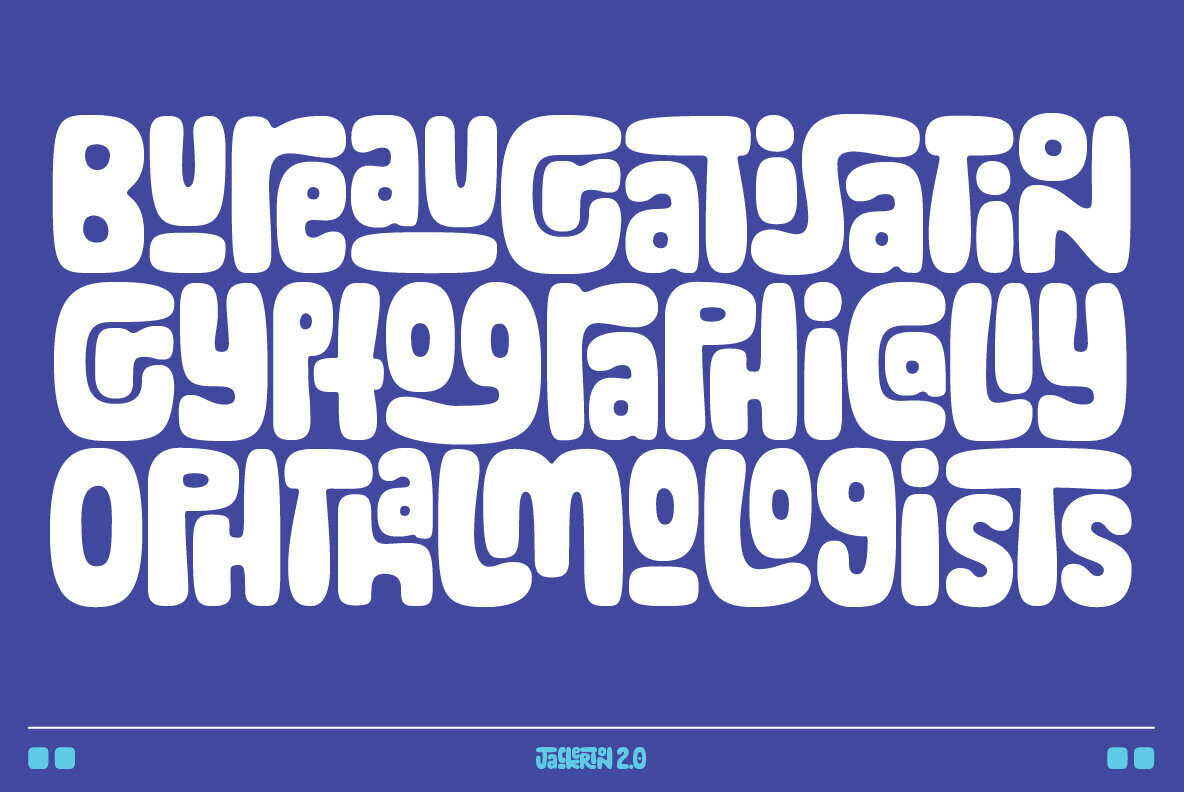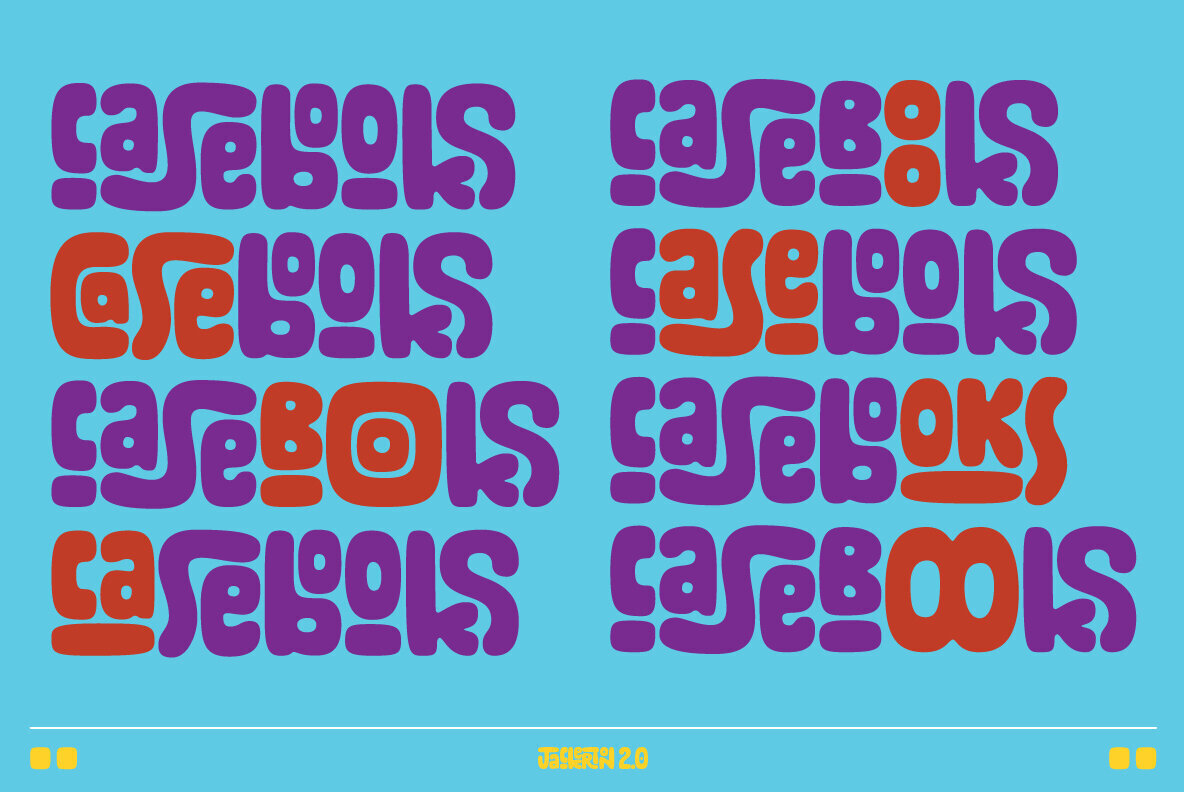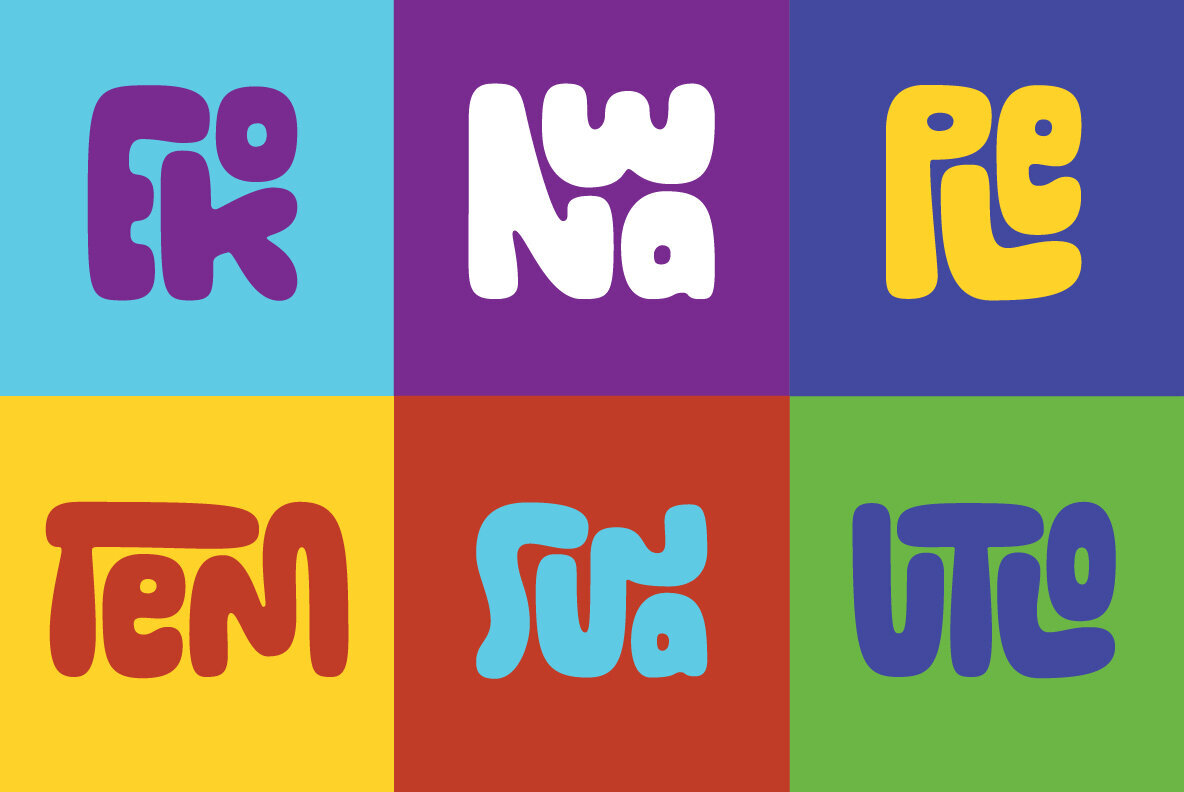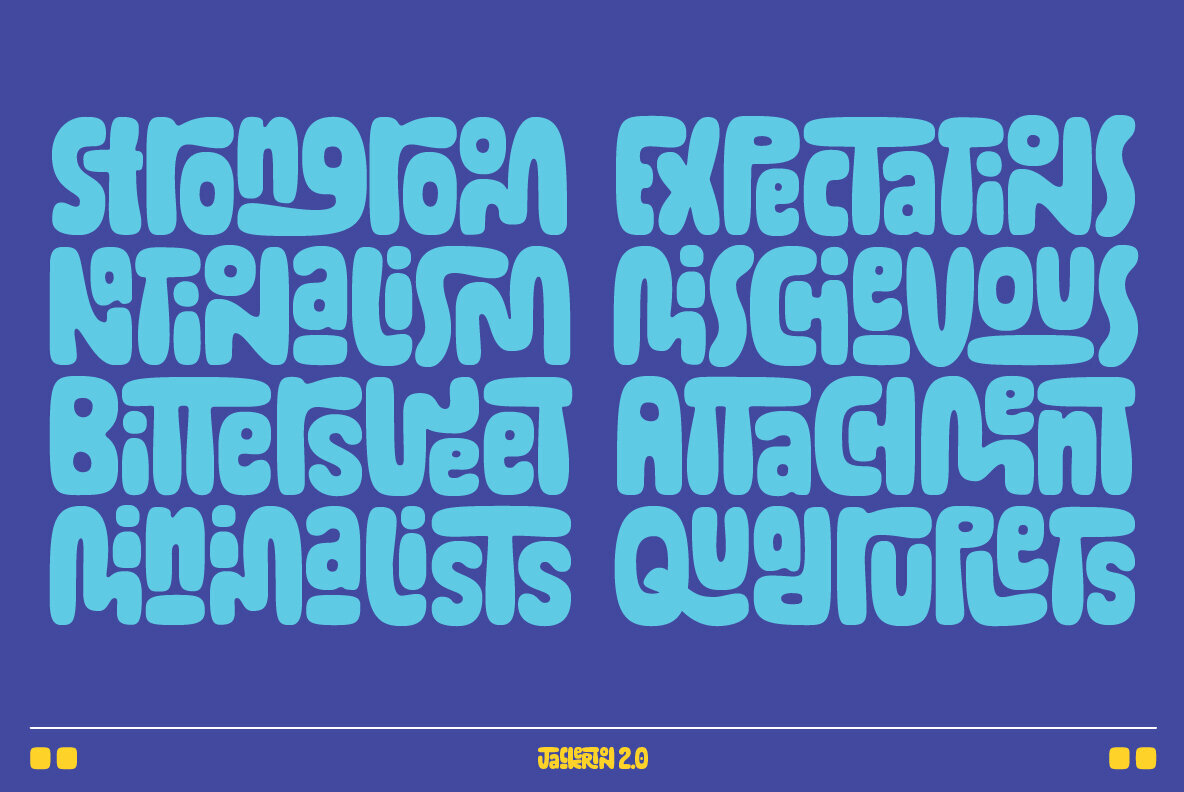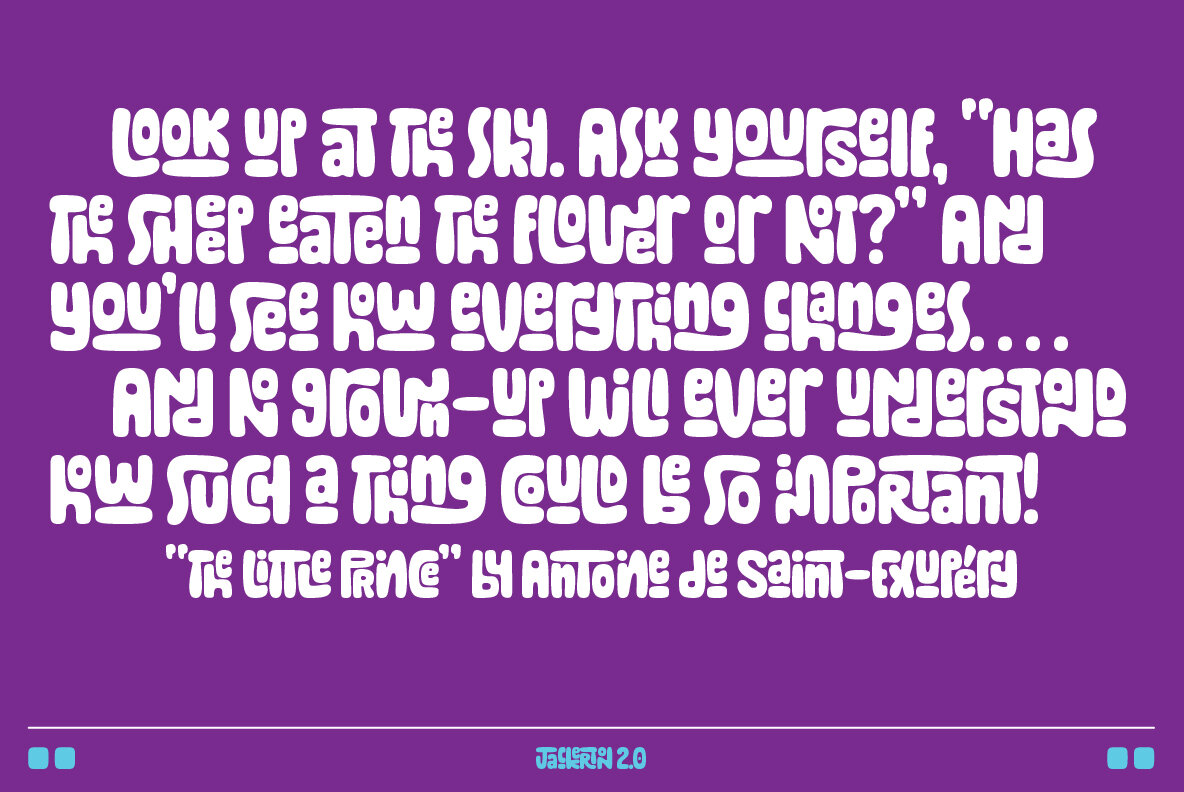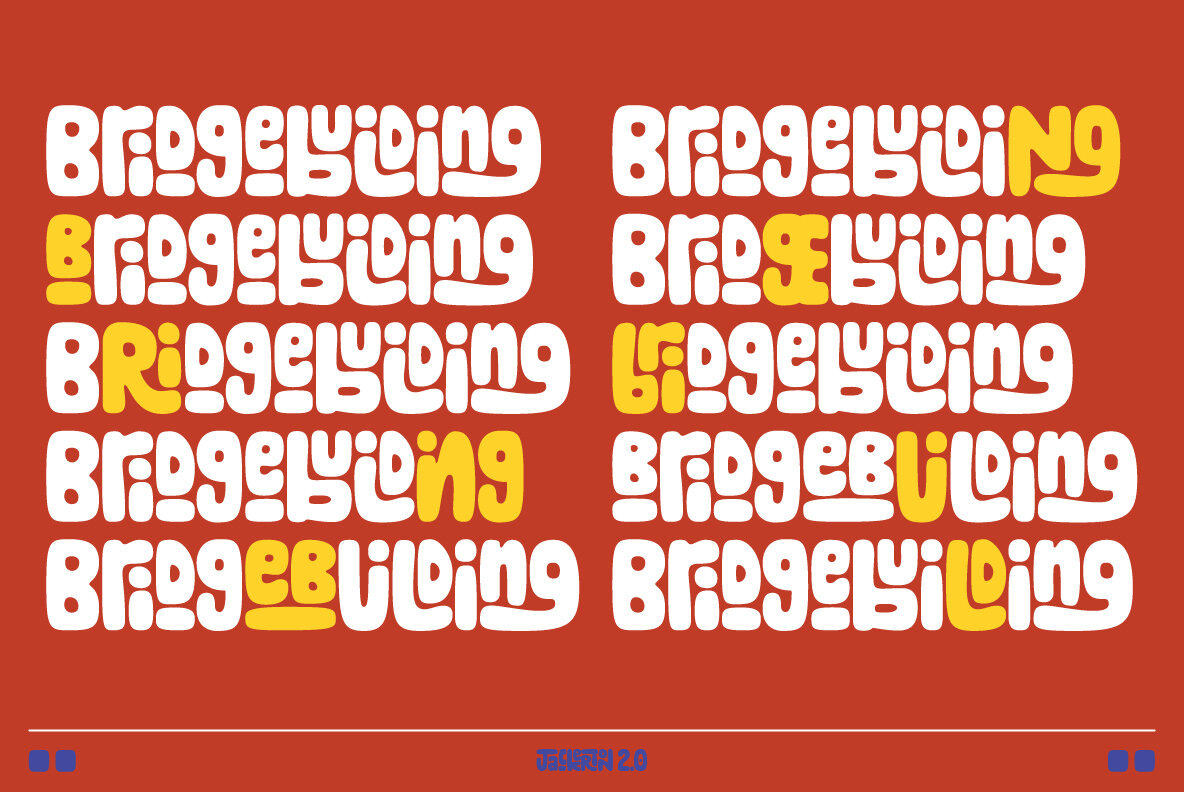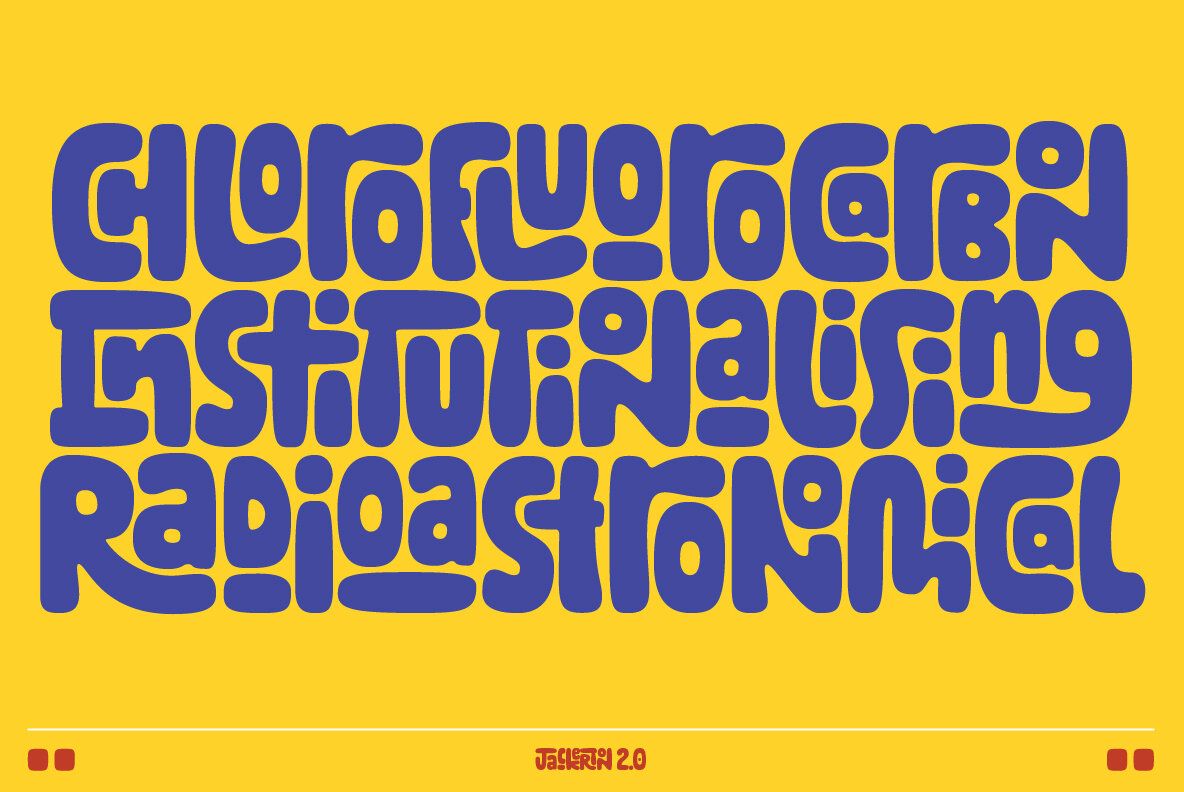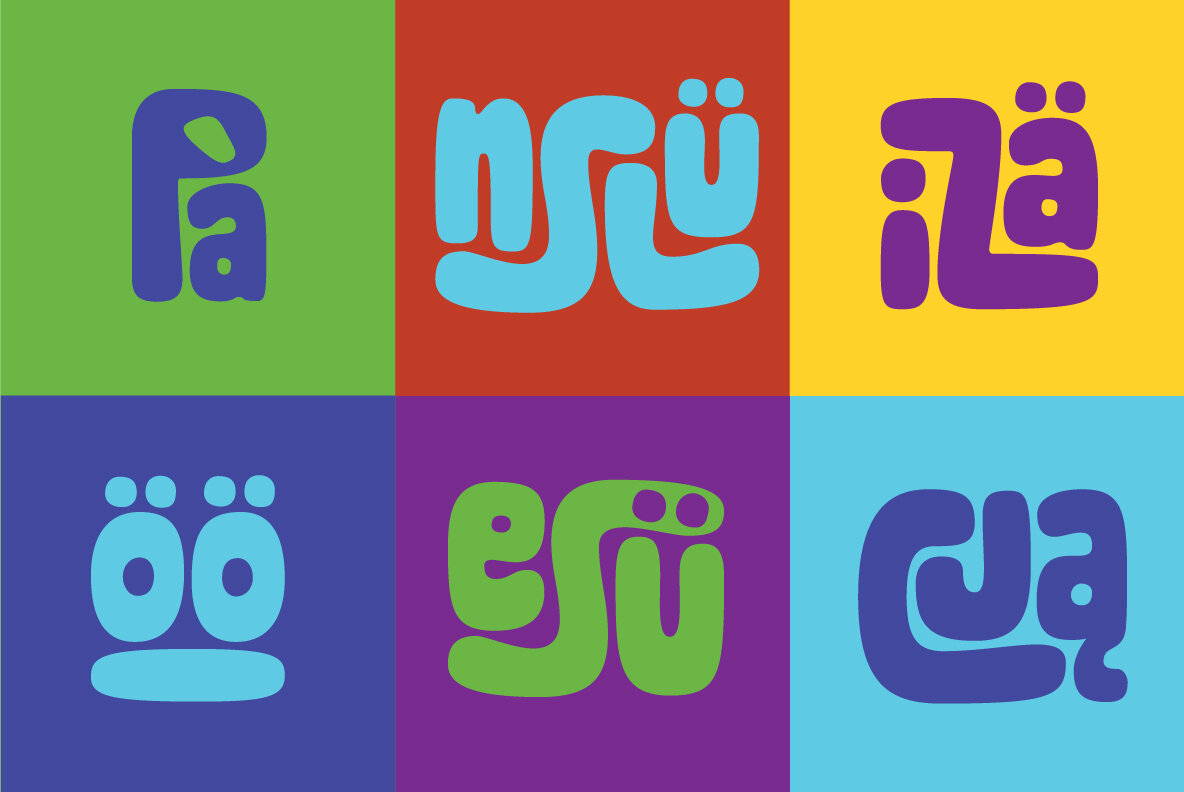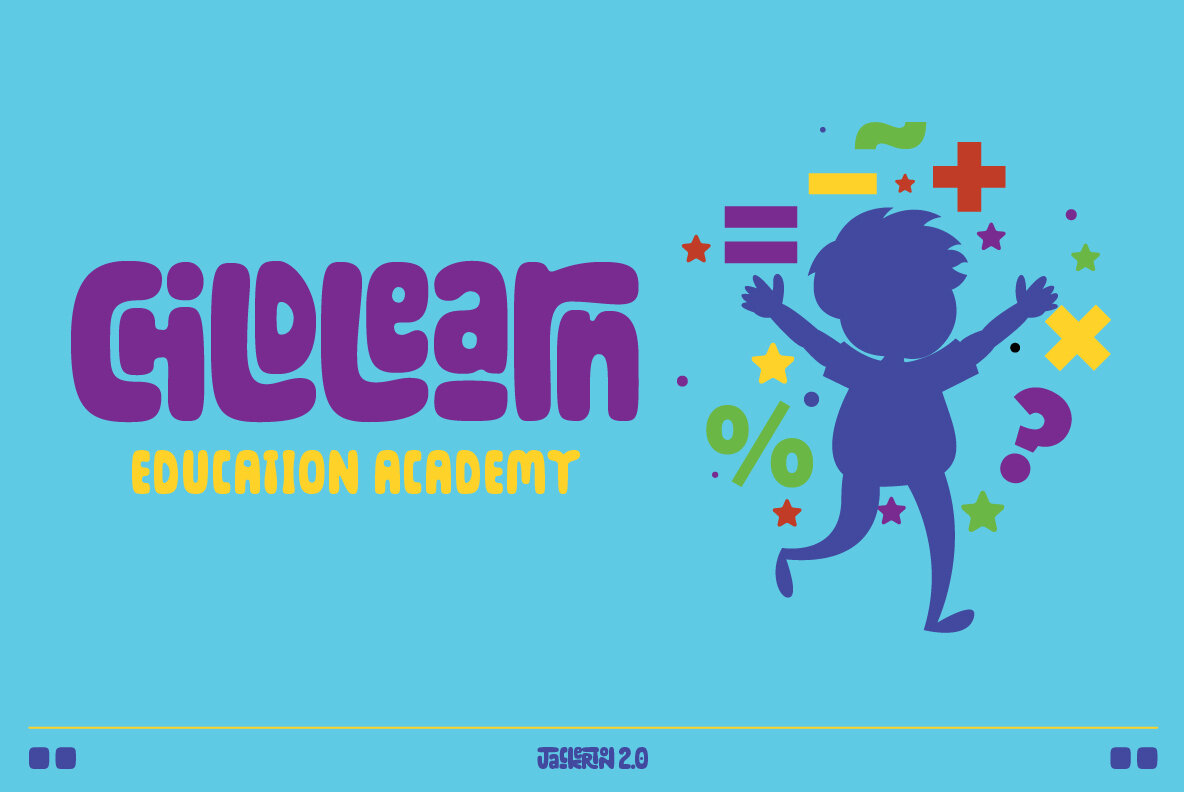
Jackerton Font
Jackerton Regular
Jackerton is a playful, hand-drawn typeface inspired by the doodles of the designer's father. Every word is a puzzle with pieces changing and shifting as you type. Over 50,000 words in more than 100 latin-based languages have been scrutinized to make sure each combination of letters fits together precisely from the 2,000+ ligatures.